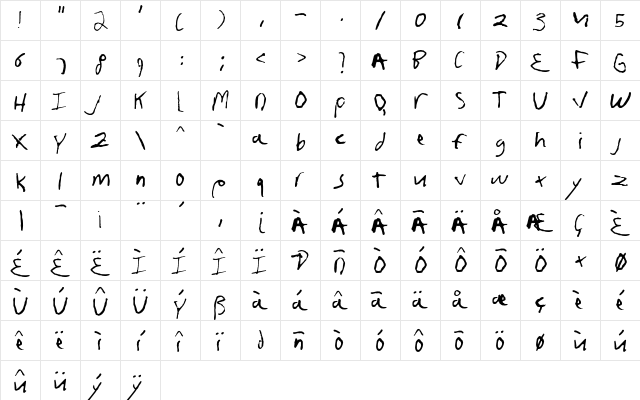
fruscianteHand Regular
| Foundry | 頊 O E B O B graphics |
| Designer | 頊 O E B O B graphics 2001 / 2008 |
Design Context for fruscianteHand Typeface
fruscianteHand flows with the natural rhythm of handwritten lettering, making it ideal for designs that call for warmth and personal expression.
Font Pairing: Combine fruscianteHand with a simple geometric sans for maximum contrast — the tension between flowing curves and clean structure is a classic typographic pairing.
Pro Tip: Use fruscianteHand for short runs of text — names, titles, or taglines. Extended body copy in script faces tires the eye quickly.